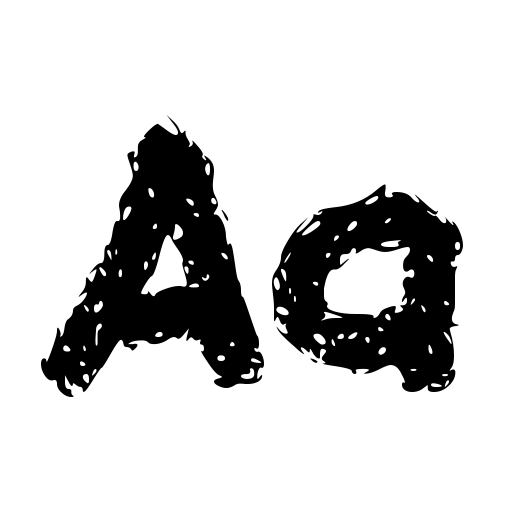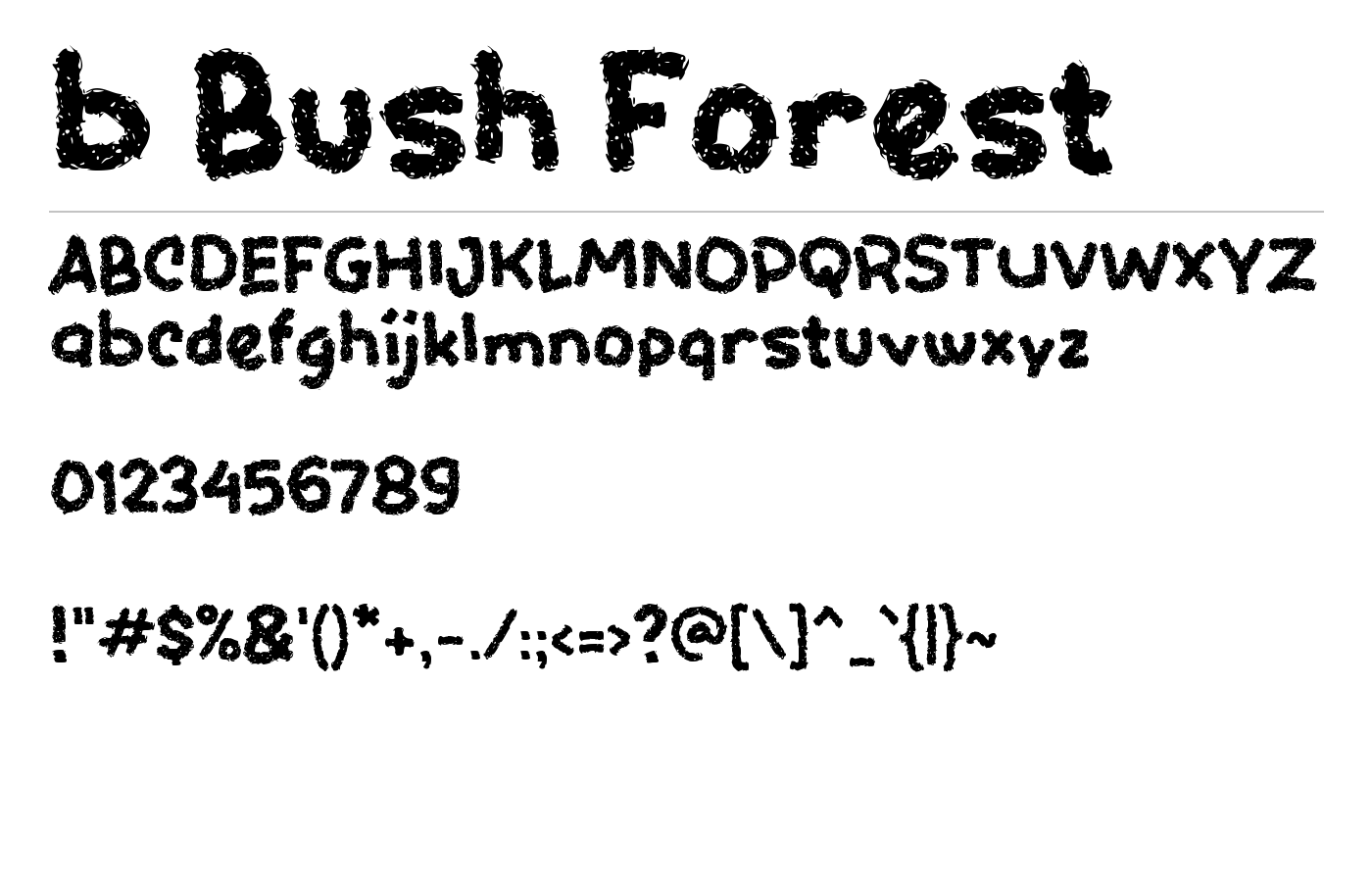
b Bush Forest is a playful, textured sans serif font with a hand-crafted, rough edge that evokes a natural, organic feel. Its irregular, bold strokes and casual letter shapes make it perfect for designs needing a fun, rustic, or outdoorsy vibe, ideal for creative logos, posters, and packaging that want to convey warmth and adventure. This font works best in display use where its unique texture can stand out and add character.
b Bush Forest Font